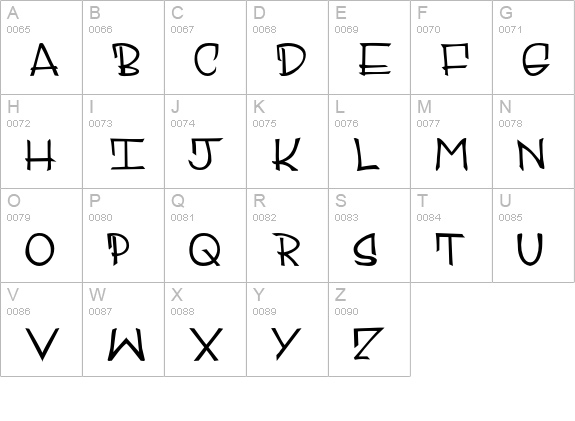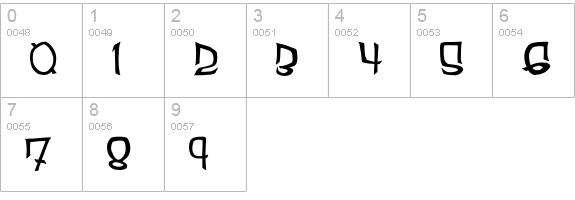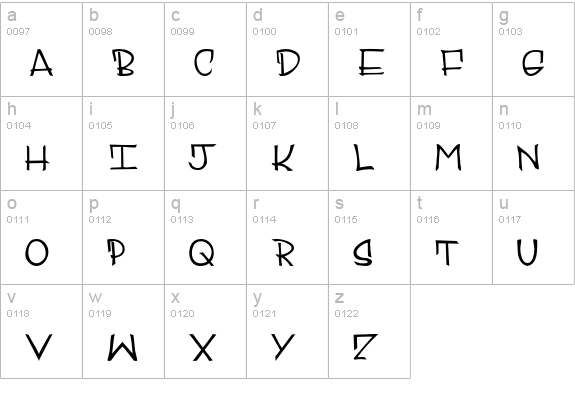
ELREYLUIS Font Details
ELREYLUIS font is a captivating and versatile typeface that exudes elegance and modernity. With its clean lines and stylish curves, this font is perfect for a wide range of design projects, from branding to editorial design. The eye-catching letterforms of ELREYLUIS make it stand out and leave a lasting impression on viewers. What sets ELREYLUIS font apart is not only its aesthetic appeal but also the fact that it is available for free. Designers and creatives can easily download this font from FontsMarket.com and use it in their projects without any restrictions. Its sleek and contemporary look makes it a popular choice for various design applications, and its versatility allows for seamless integration into different design styles. Whether you are working on a logo, website, poster, or any other design project, ELREYLUIS font is sure to elevate your work and add a touch of sophistication. Its timeless design and effortless charm make it a must-have in any designer's toolkit. Download ELREYLUIS font for free today and let your creativity shine with this exceptional typeface.